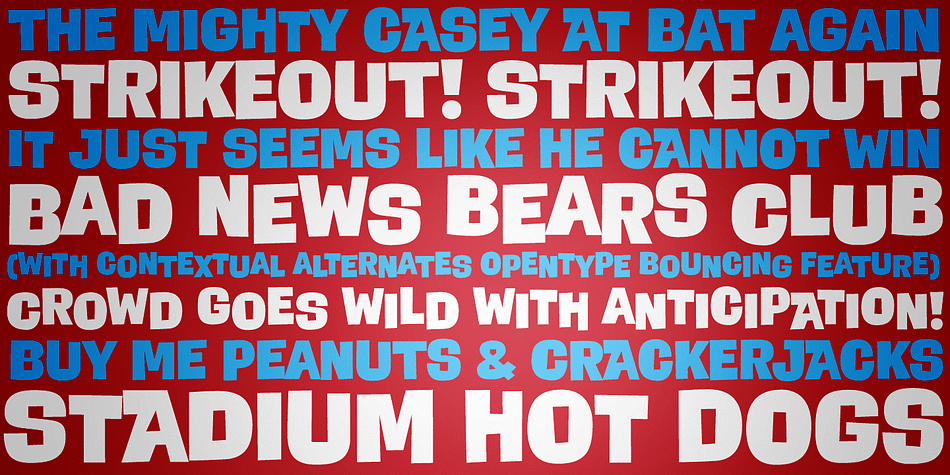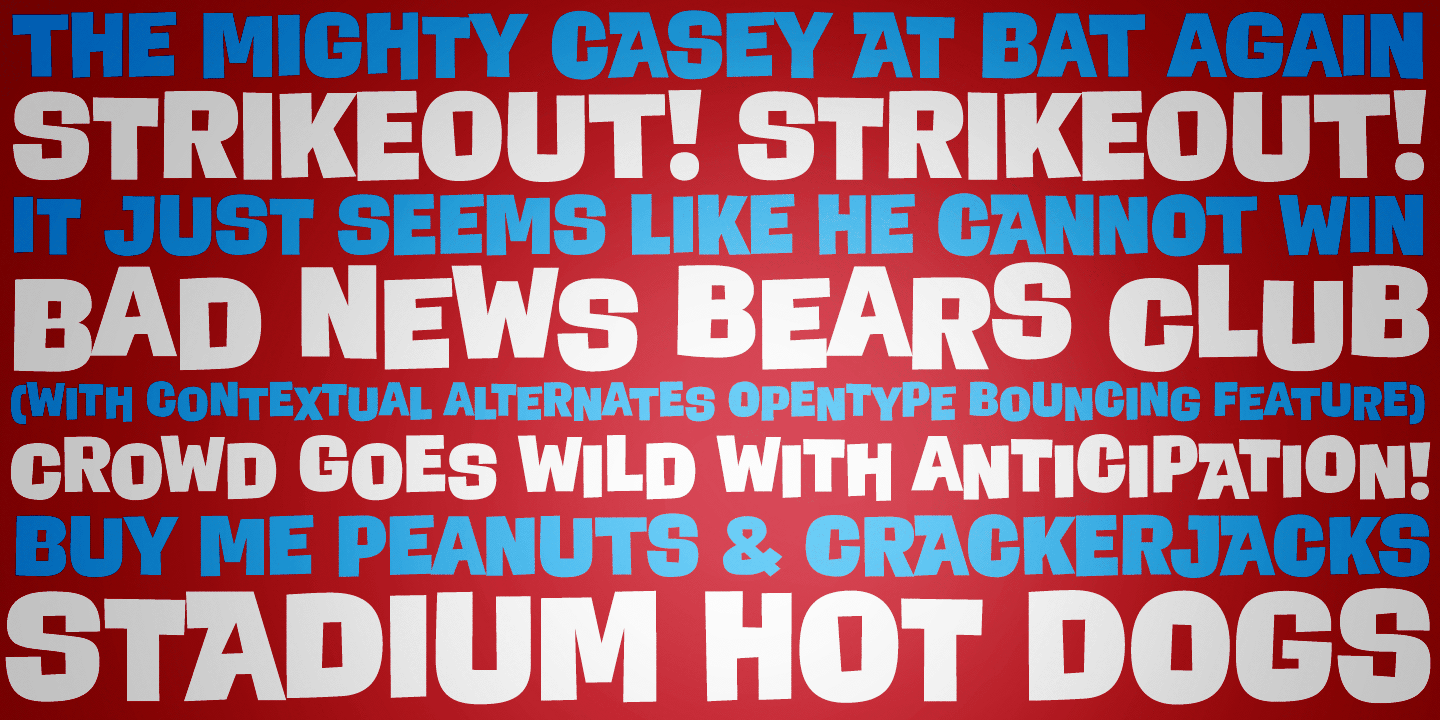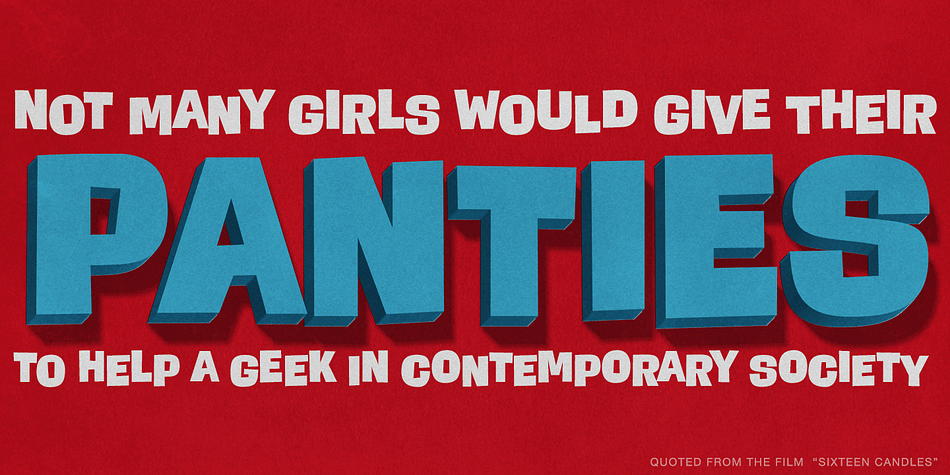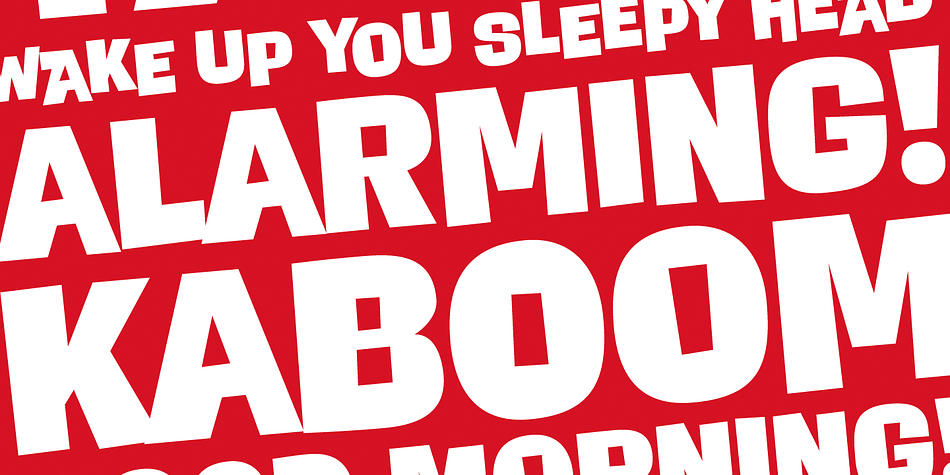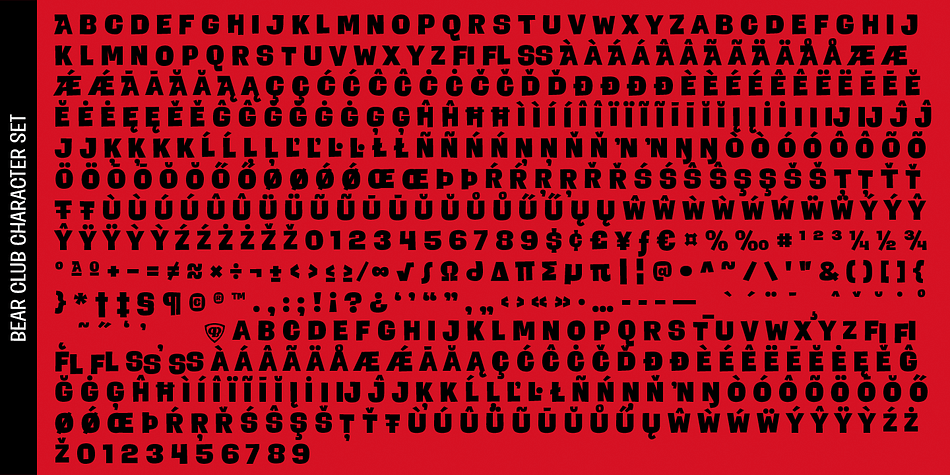
Designed by Phil Bracco, Bear Club PB is a hand display font published by Pink Broccoli.
Another offbeat typeface inspired by the lettering on a design by Patrick Owsley for the Chicago Bears.
There’s nothing more lively than animated text, and Bear Club has that flavor in two ways. With counter inspirations drawn from fonts like Ad Lib and Nightclub, an automatic alternating caps and alternate caps feature, as well as a contextual alternates set that creates a true animated bounce, just like Hip Hopper.
Let the fun begin with this spunky, lighthearted and heavy-weighted comic typeface.